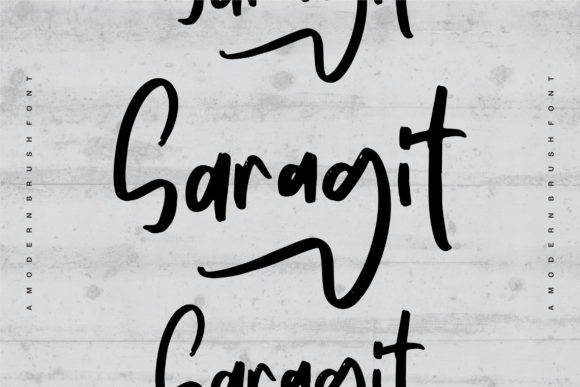
About Saragit Font
Saragit is a beautiful and refined handwritten font that exudes elegance and sophistication. With its delicate and flowing letterforms, it adds a touch of grace to any design. Whether you’re using it for branding, invitations, logos, or any other creative project, Saragit’s timeless style will elevate your designs to new heights.
The well-balanced characters of Saragit create a harmonious and visually pleasing look. Each letter has been meticulously crafted to maintain a sense of balance and readability while still retaining its unique and artistic flair. The result is a font that is both elegant and legible, making it a versatile choice for a wide range of design applications.
With its extensive set of glyphs and swashes, Saragit offers you endless creative possibilities. The PUA encoding ensures easy access to all the additional characters, ligatures, and decorative elements, allowing you to customize your designs and add a personal touch.
Whether you’re designing wedding invitations, creating elegant logos, or crafting beautiful quotes, Saragit will bring a touch of sophistication and refinement to your projects. Its flowing and delicate nature adds a sense of romance and beauty, capturing the attention of viewers and leaving a lasting impression.
Embrace the beauty and versatility of Saragit and let it inspire your creativity. Explore its wide range of possibilities, from formal and classic designs to more whimsical and playful creations. With Saragit, your designs will come alive with elegance and charm.